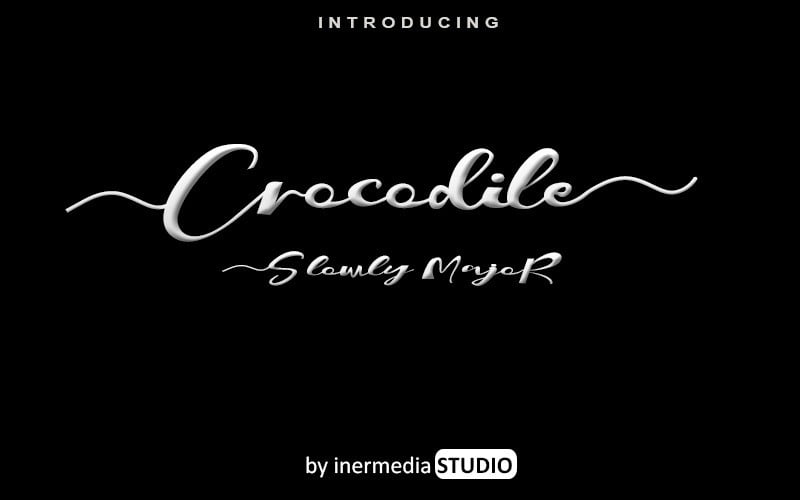
Crocodile Script Font
Crocodile Font is a magical handwritten font carefully created with a touch of elegance.
This font is the perfect font for making original and outstanding designs.
Use this gorgeous and unique handwritten font to bring any DIY project to life!